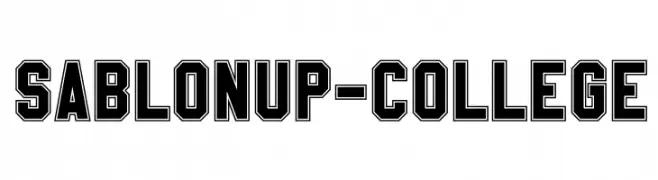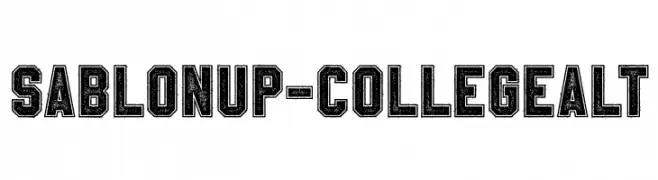
A bold, distressed collegiate-style font with a vintage feel.
A bold, collegiate-style font with a strong, outlined presence.
A bold, collegiate-style font with an outline and shadow effect.